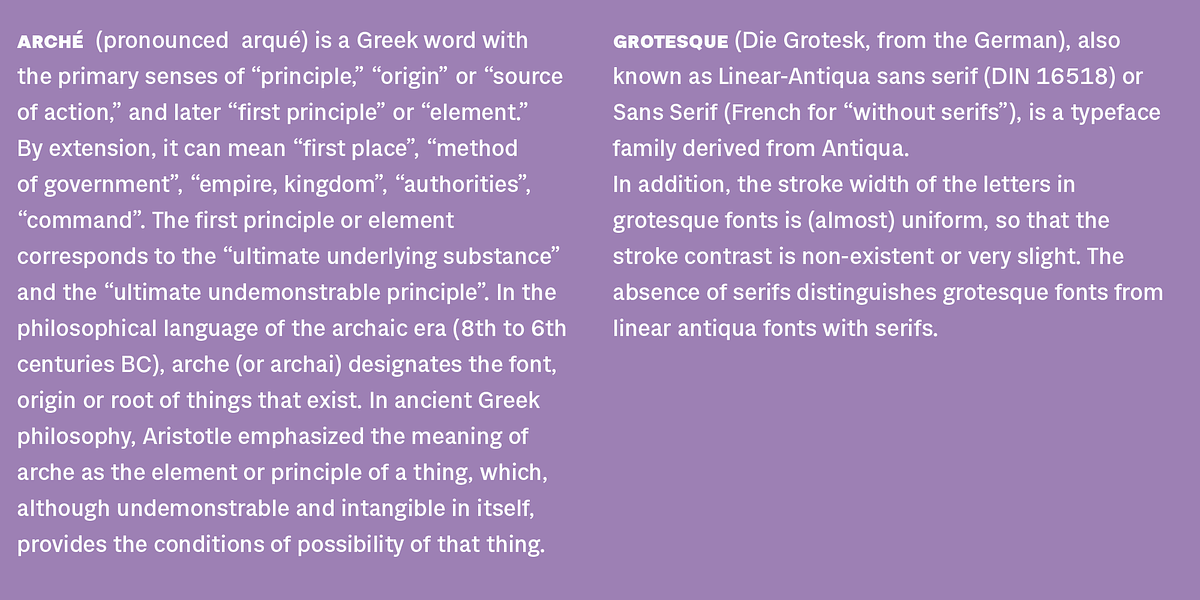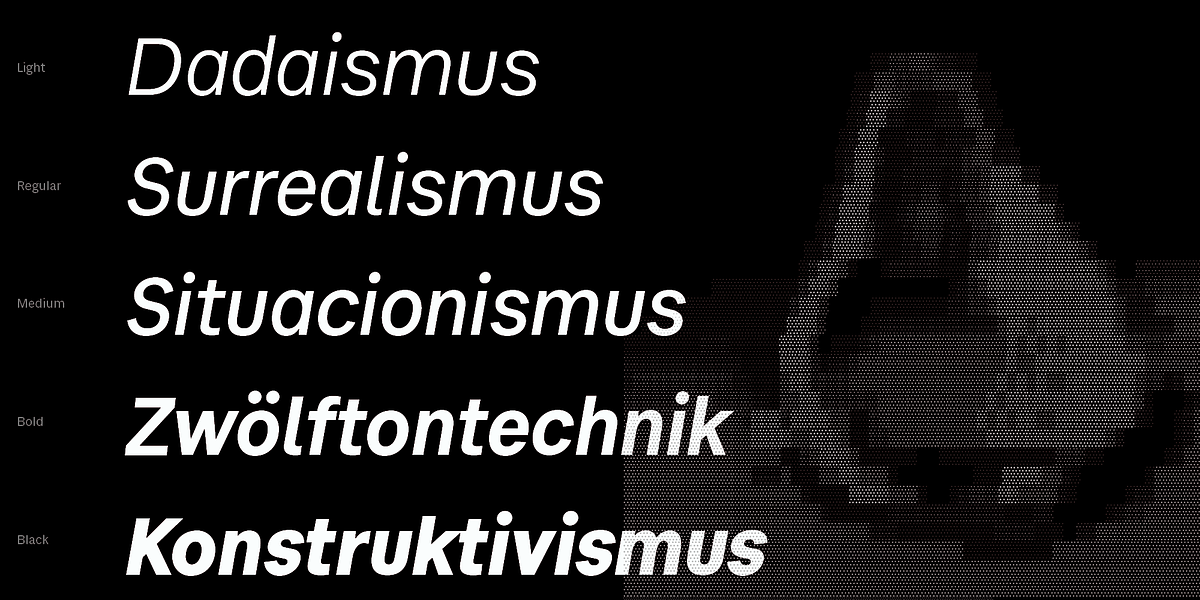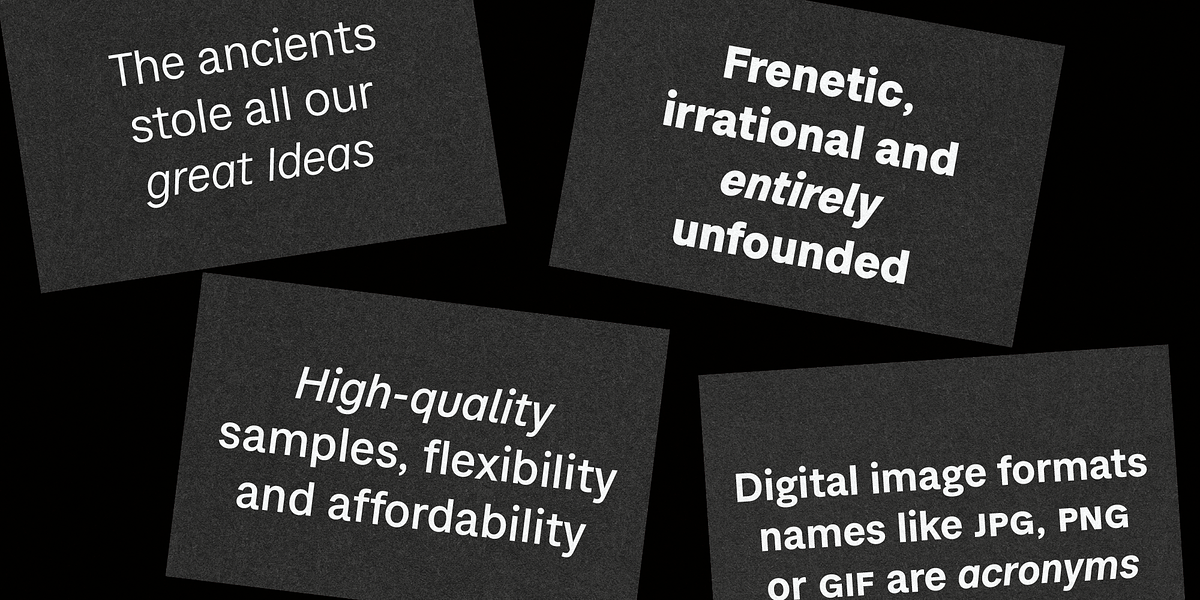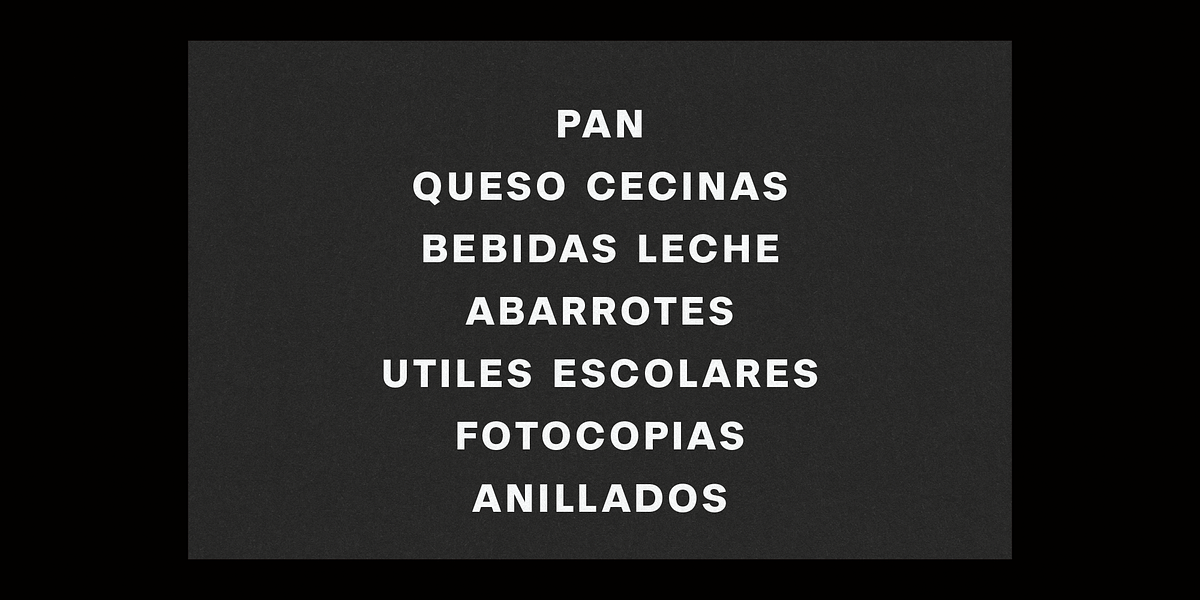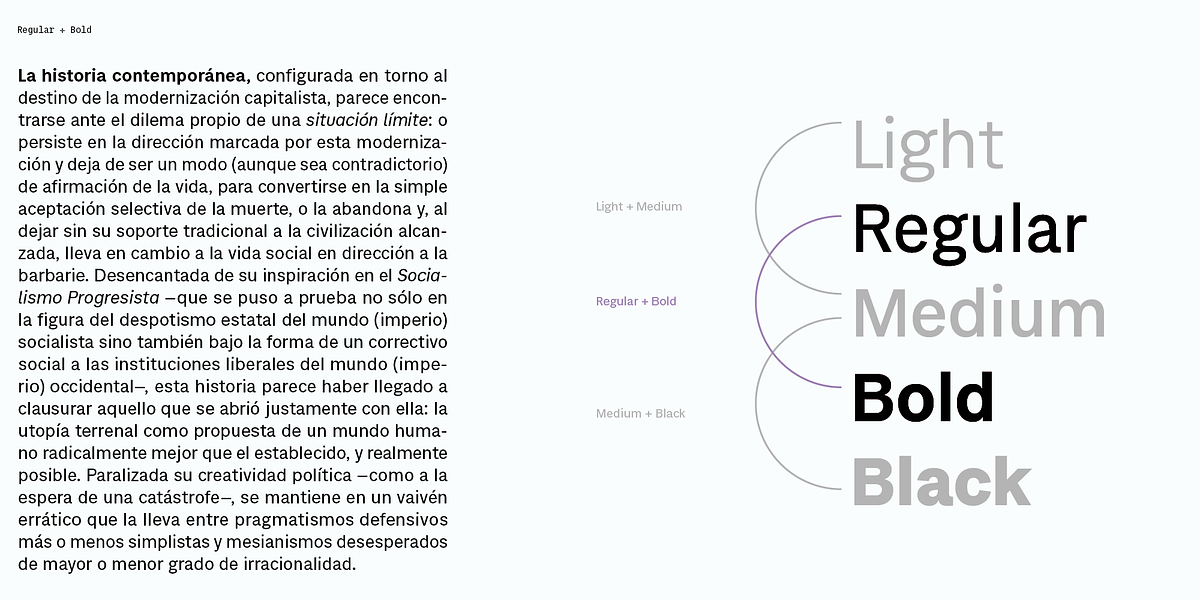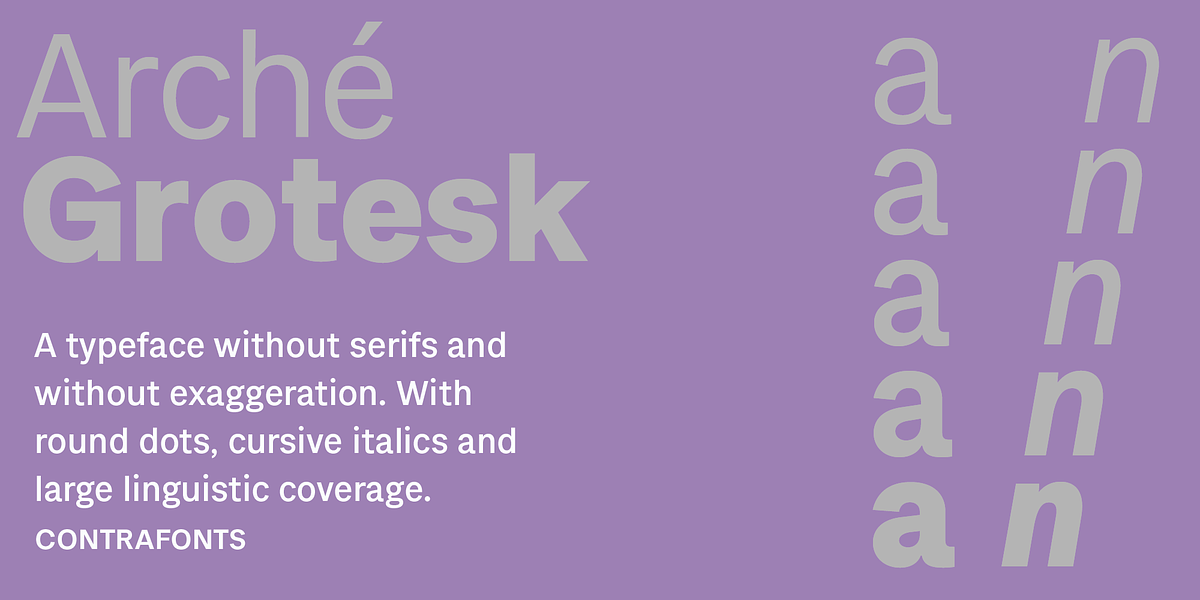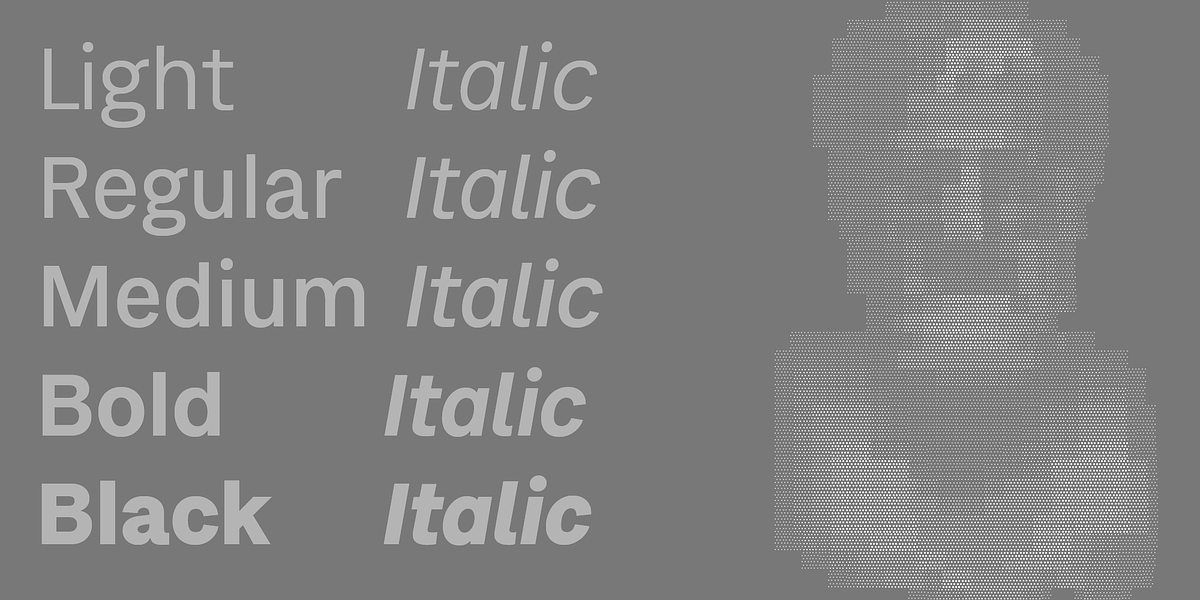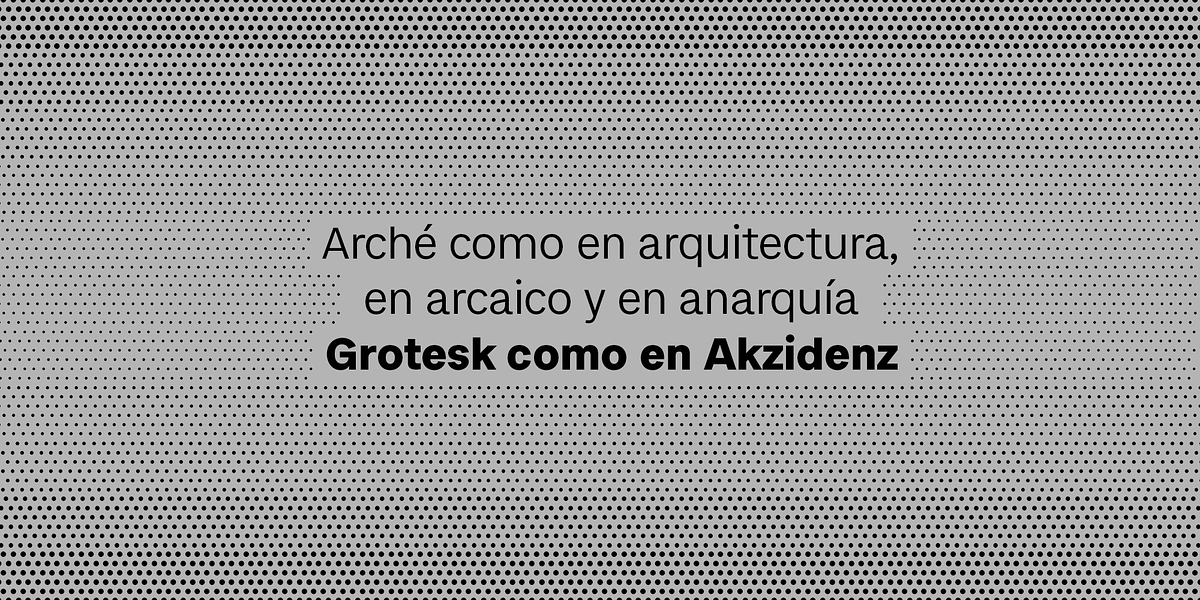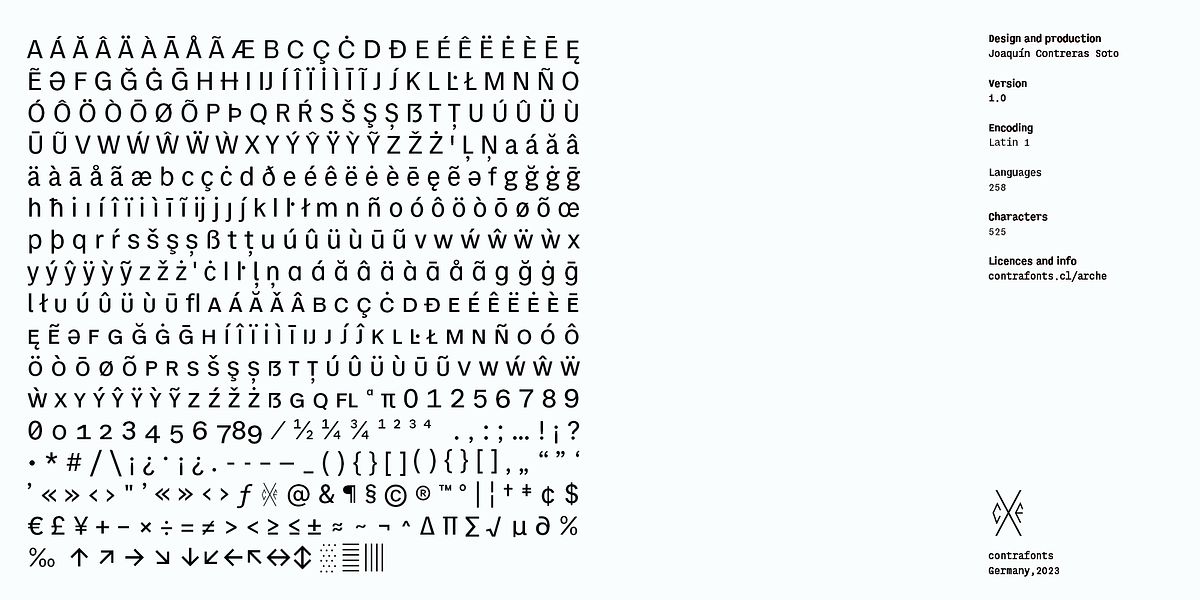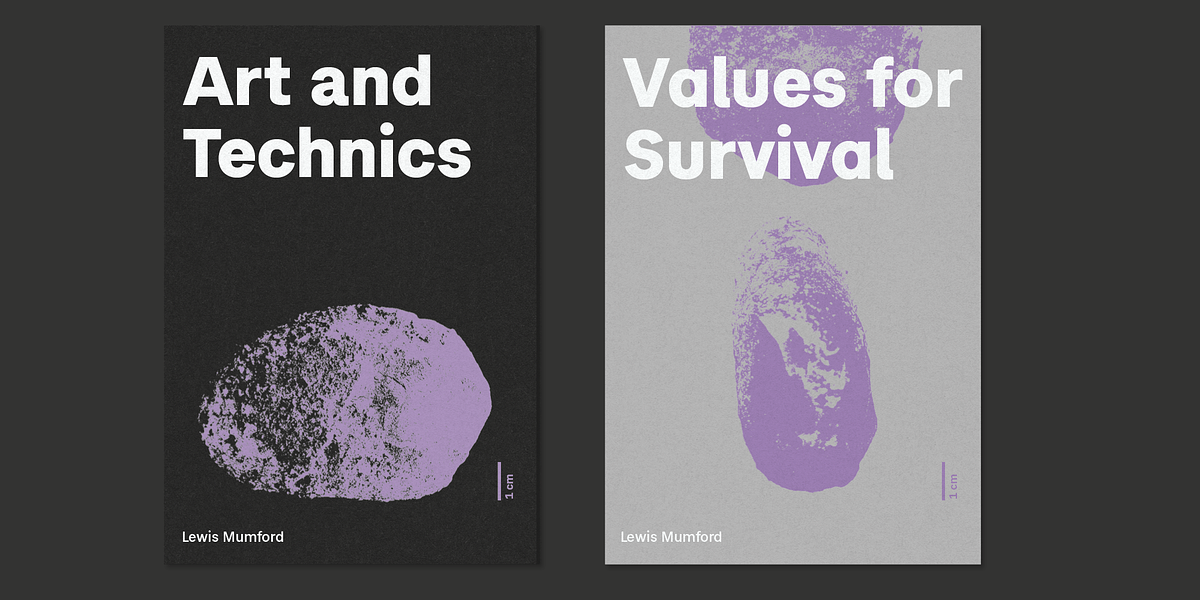
CF Arche Grotesk
Arche is a modern sans-serif font designed for readability and versatility. It features five weights with italics, along with old and modern numerals, arrows, and ornaments. Its clean aesthetic and extensive language support make it a suitable choice for body text in various applications.